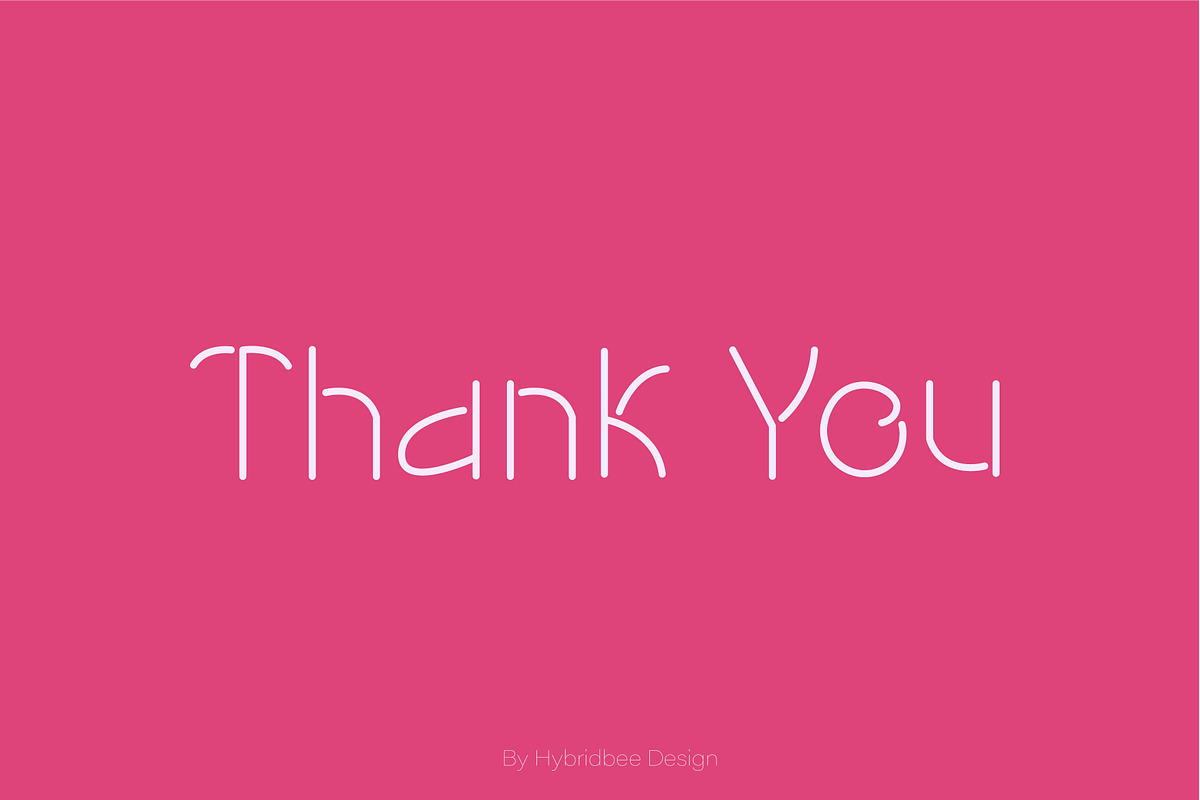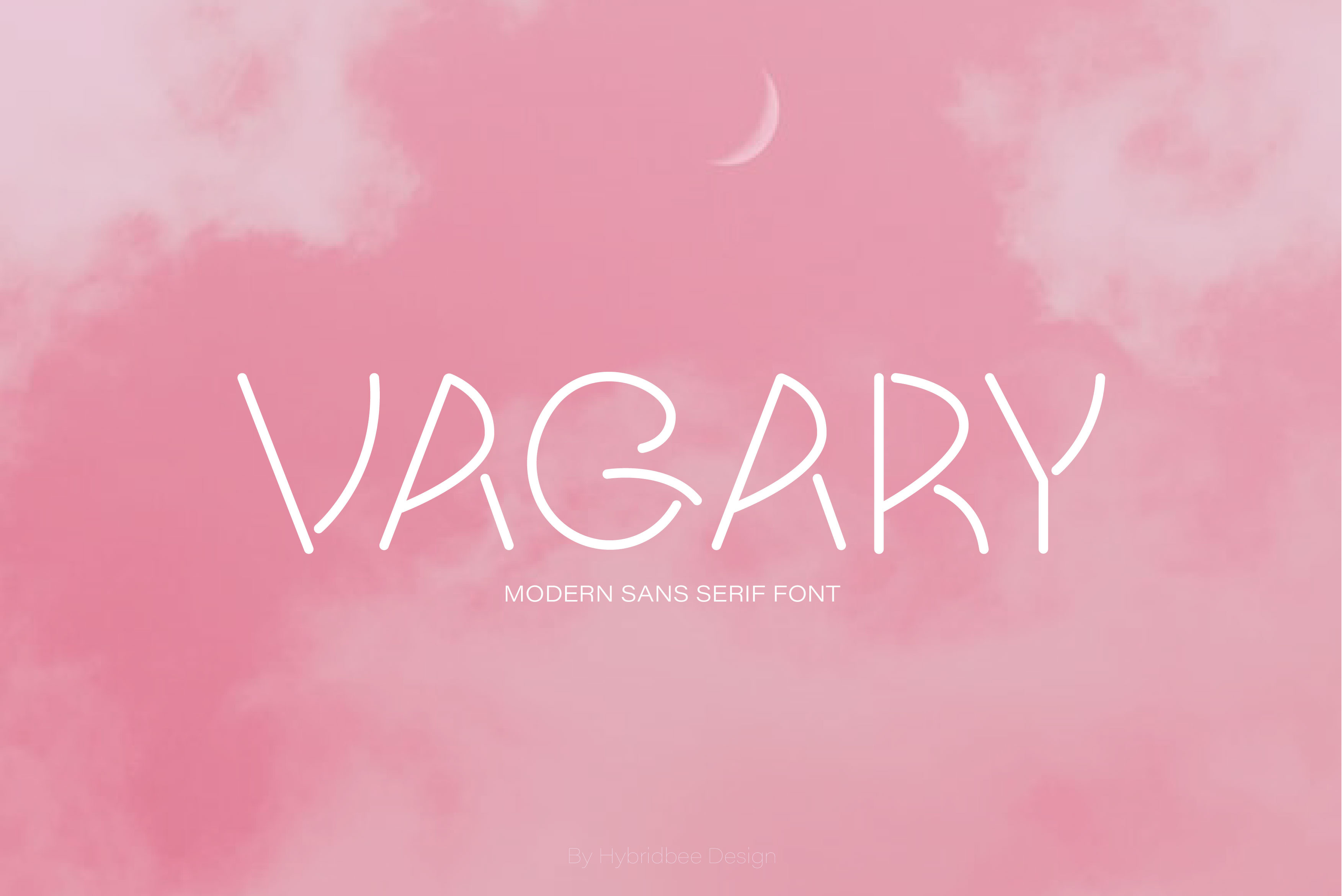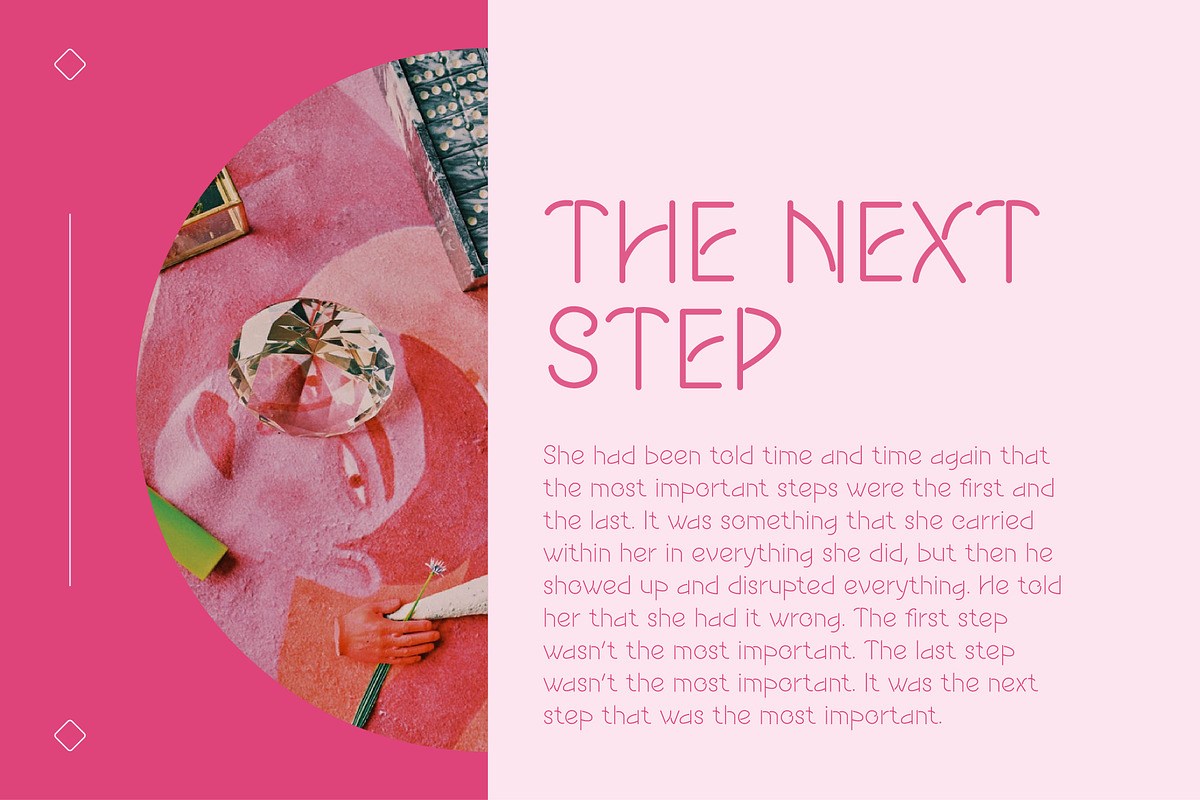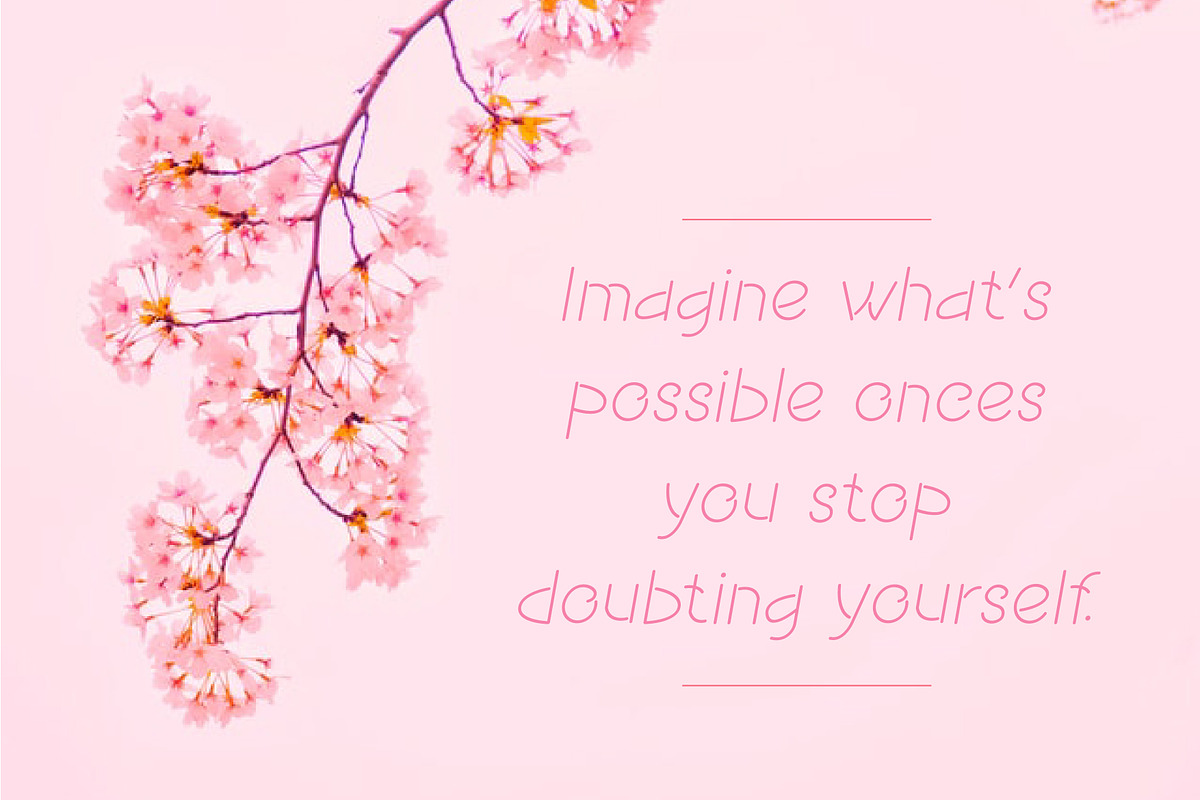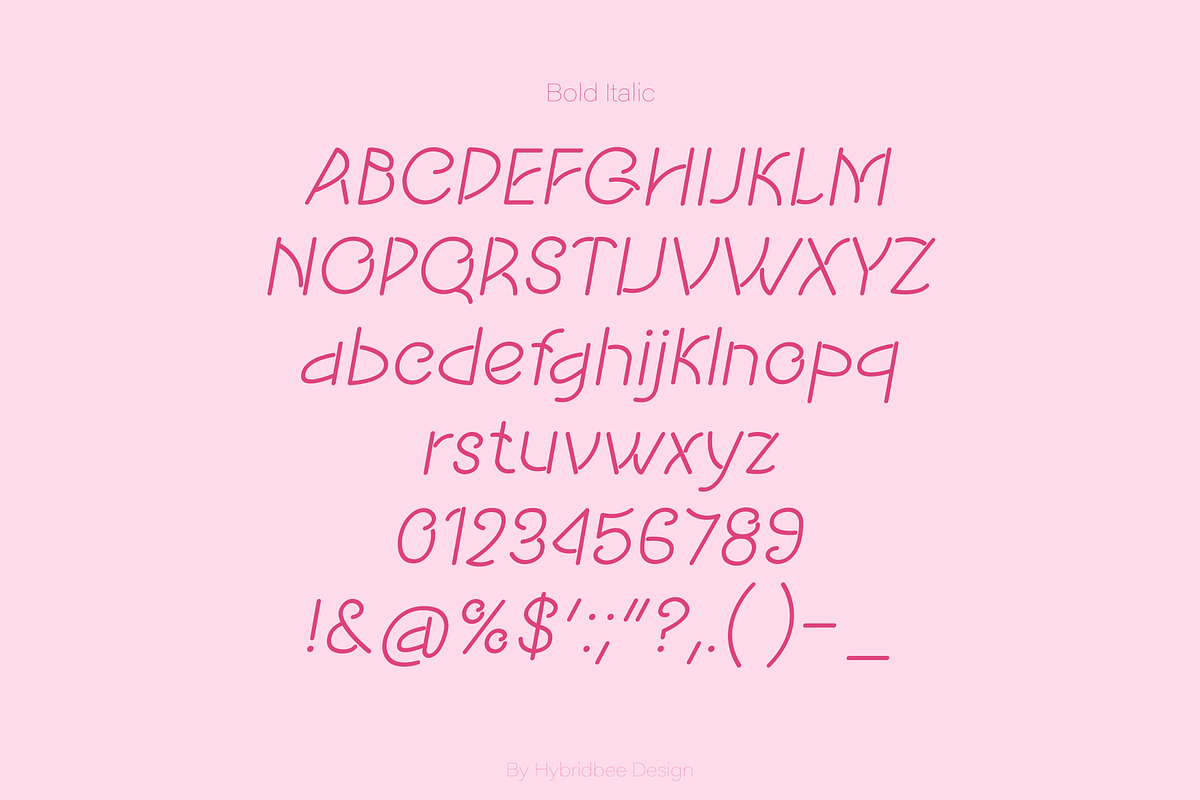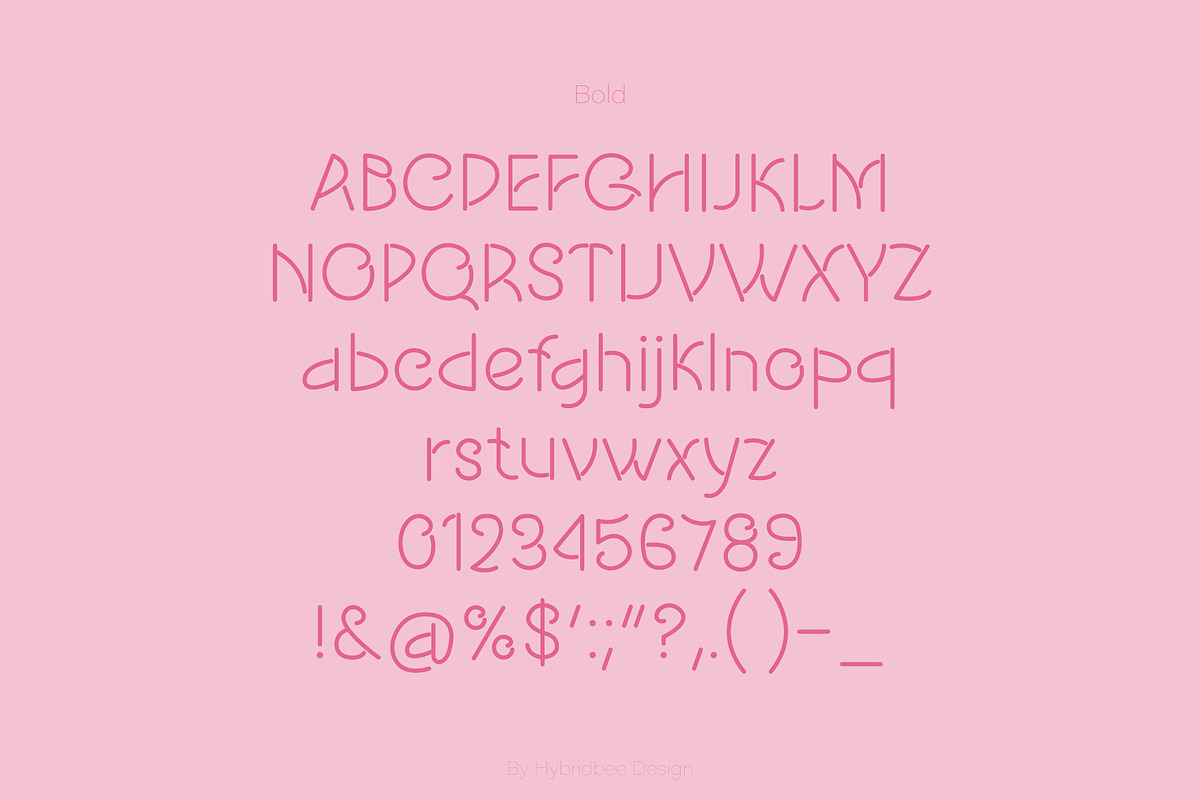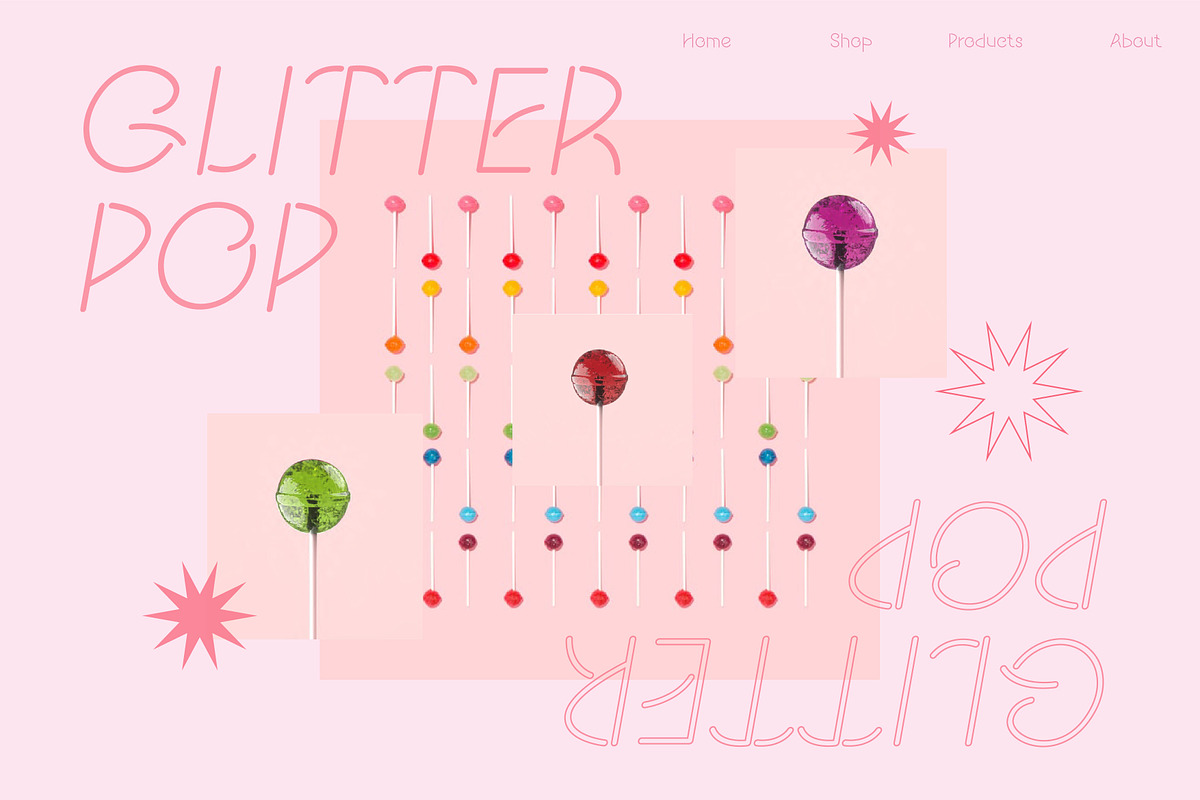
VAGARY-DISPLAY FONT
VAGARY – Sans Serif font
Vagary is a modern and unique sans-serif display font. It includes uppercase letters, lowercase letters, numerals and some punctuations in regular, italic, bold and bold italic. It has a minimalistic and artistic style and can be used to create posters, headlines, branding, packaging, logo, web design, and other design needs.